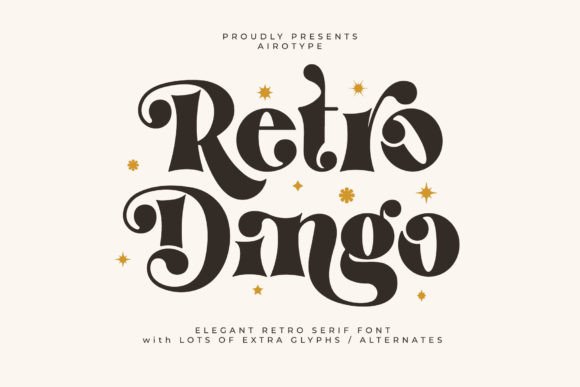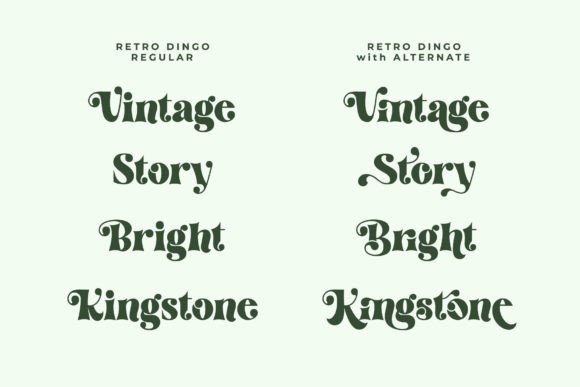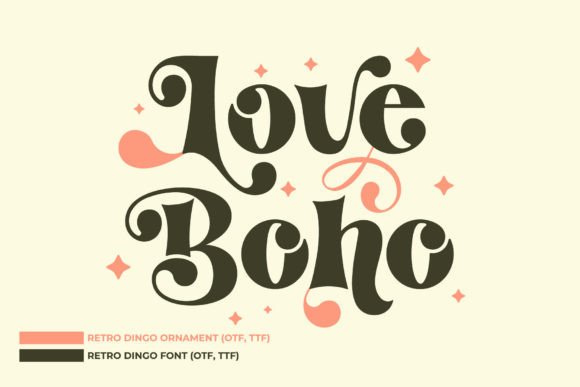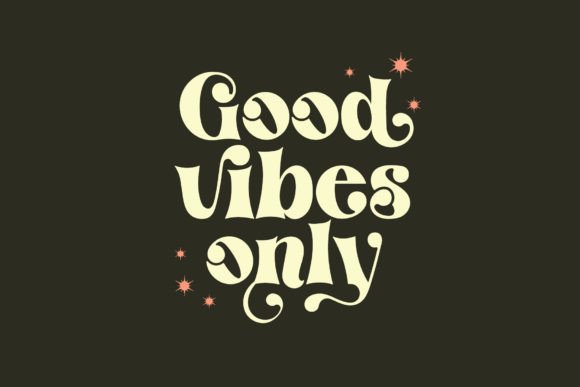
Retro Dingo Font: Groovy Vintage Serif for Logos & Branding!
About the Retro Dingo Font
Explore the possibilities with Retro Dingo Font, a font that offers both beauty and functionality. Retro Dingo is a modern and elegant serif font with a vintage touch. It is quirky, pretty, and nostalgic.
This font is the perfect font for any project with a modern vintage touch, such as logos, crafting, wedding invitations, branding, photography, sticker, sublimation, quotes, and many others.
Retro Dingo excels in applications requiring a touch of vintage charm without sacrificing readability. It’s ideal for headlines, short paragraphs, logos, and branding projects aiming for a sophisticated yet playful aesthetic. Consider it for packaging, posters, and invitations where its quirky elegance shines. Avoid using it for extensive body text or UI elements; its character is best suited to impactful statements rather than lengthy narratives.
Pairing Retro Dingo with a clean sans-serif like Open Sans for body text provides excellent contrast and readability. For a more playful feel, consider a handwritten script font, but choose one with a similar level of sophistication to avoid clashing. A geometric sans-serif could also create a striking juxtaposition, modernizing the vintage feel.
The overall personality of Retro Dingo is sophisticatedly playful; it’s bold yet charming, offering a unique blend of modern and vintage appeal. This makes it perfect for brands that wish to project a sense of playful professionalism or nostalgic modernity.
Retro Dingo Font Usage Examples
Retro Dingo Font Example